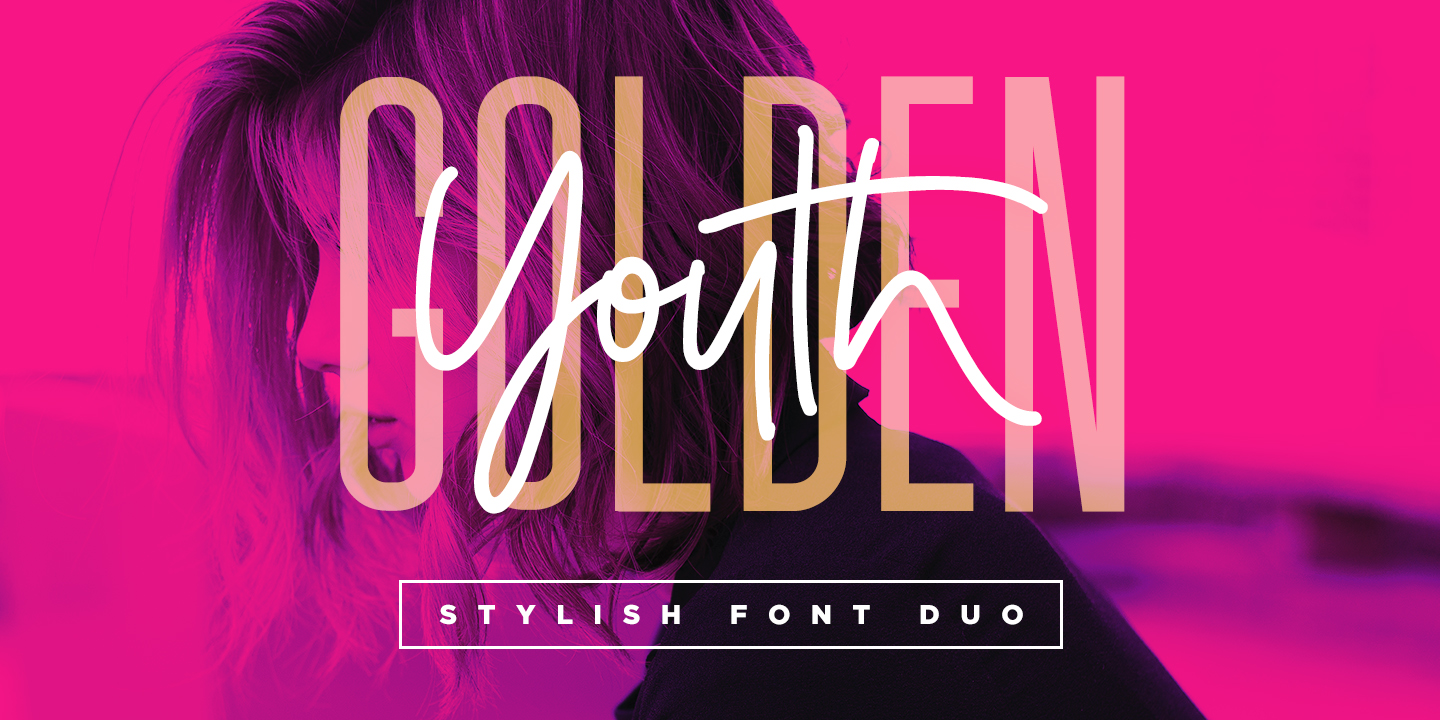
Golden Youth Font Duo is an exquisite and versatile typeface pairing, specifically designed to capture a sense of modern elegance, youthful vibrancy, and sophisticated charm. This duo typically combines a beautifully flowing script font with a clean, complementary sans-serif or serif, making it an ideal choice for projects that demand both personality and clarity. Imagine Golden Youth Font Duo gracing wedding stationery, adding a chic touch to lifestyle blog headers, or bringing a fresh, contemporary feel to boutique branding. This highly adaptable pairing also shines in areas like social media graphics, product packaging for cosmetics or artisanal goods, or any design where you want to communicate creativity, a touch of luxury, and a refined aesthetic.
What makes Golden Youth Font Duo truly exciting is its inherent versatility and the harmonious synergy between its two distinct styles. The combination allows designers to create dynamic visual hierarchies and convey different aspects of a message within a single design, from a heartfelt headline to clear supporting text. Designers are constantly seeking font pairings that offer such a seamless blend of expressive artistry and practical legibility, and Golden Youth Font Duo perfectly achieves this balance. It simplifies the design process by providing a pre-curated, aesthetically pleasing combination that saves time and guarantees a cohesive look.
The Golden Youth Font Duo typically includes a script font with various ligatures and stylistic alternates for a natural handwritten feel, alongside a clean sans-serif or serif font often in multiple weights (e.g., Light, Regular, Bold). These comprehensive options provide invaluable flexibility for designers to craft engaging visuals across diverse applications. Whether you need an elegant statement for a brand logo or legible information for a product description, the rich selection within the Golden Youth Font Duo ensures ample creative freedom. For designs that demand a blend of sophisticated charm and undeniable appeal, remember to explore Golden Youth Font Duo Free Download.